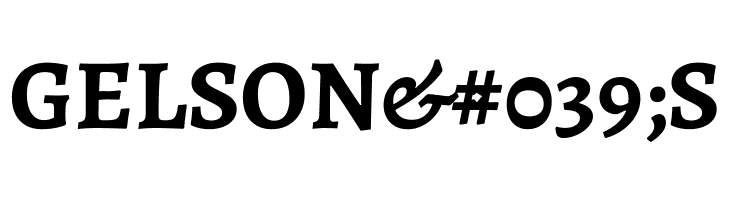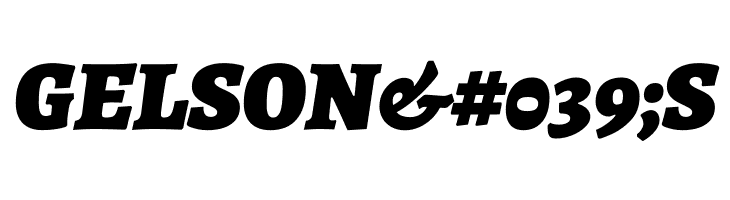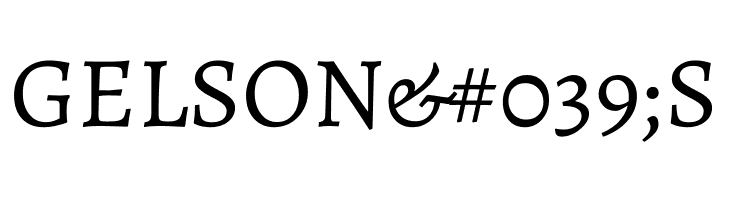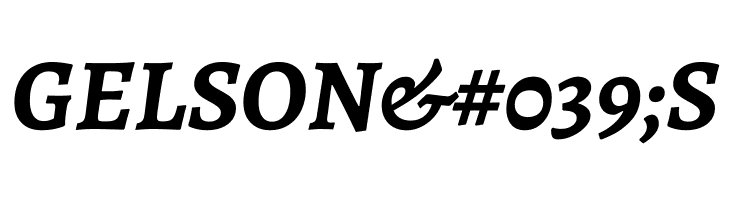
• Alegreya Sans SC ExtraBold
A bold, modern sans-serif font with strong, clean lines and uniform stroke width.
• Alegreya Sans SC Italic
A modern, italic sans-serif font with clean lines and balanced spacing.
• Alegreya Sans SC Light
A modern, light sans-serif font with a clean and professional look.
• Alegreya Sans SC Light Italic
A modern, light, and italic sans-serif font with medium contrast.
• Alegreya Sans SC Medium
A modern sans-serif font with medium weight, offering clarity and versatility.
• Alegreya Sans SC Medium Italic
A modern, medium-weight, italic sans-serif font with a clean and elegant design.
• Alegreya Sans SC Regular
A clean, modern sans-serif font with a geometric structure.
• Alegreya Sans SC Thin
A modern, thin sans-serif font with clean lines and a minimalist style.
• Alegreya Sans SC Thin Italic
A sleek, thin, and italicized font with a modern and elegant style.
• Alegreya Sans Thin
A sleek, modern sans-serif font with thin, elegant lines.
• Alegreya Sans Thin Italic
A sleek, modern, and thin italic font with elegant, fluid lines.
• Alegreya SC
A classic serif font with elegant curves and modern versatility.
• Alegreya SC Black
A bold, serif font with strong strokes and pronounced serifs, perfect for impactful headlines.
• Alegreya SC Black Italic
A bold, italicized font with strong strokes and a dynamic presence.
• Alegreya SC Bold
A bold serif typeface with strong serifs and a classic, elegant style.
• Alegreya SC Bold Italic
A bold, italic serif font with a dynamic and sophisticated style.
• Alegreya SC ExtraBold
A bold serif font with a classic yet modern style.
• Alegreya SC ExtraBold Italic
A bold, italic serif font with a dynamic and elegant style.
• Alegreya SC Italic
• AleksandraC
A modern, geometric sans-serif font with clean lines and uniform stroke width.
• AleksandraCvintage